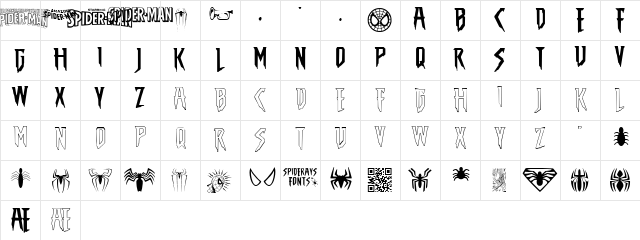
THE AMAZING SPIDER-MAN Regular
Design Context for THE AMAZING SPIDER-MAN Typeface
THE AMAZING SPIDER-MAN is a composed and adaptable typeface that performs quietly and consistently across a wide range of design contexts.